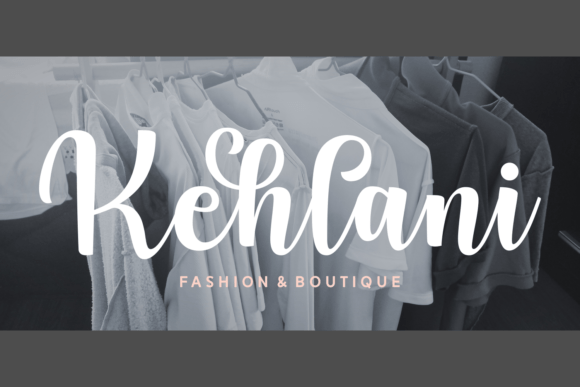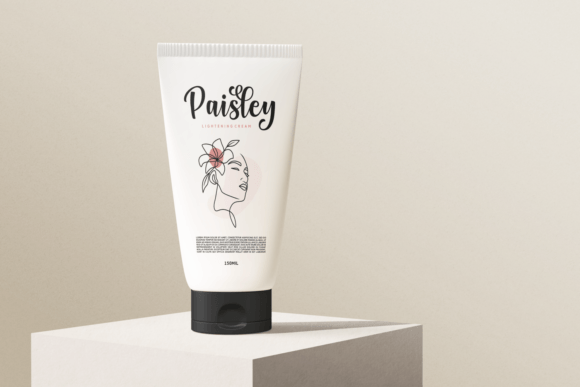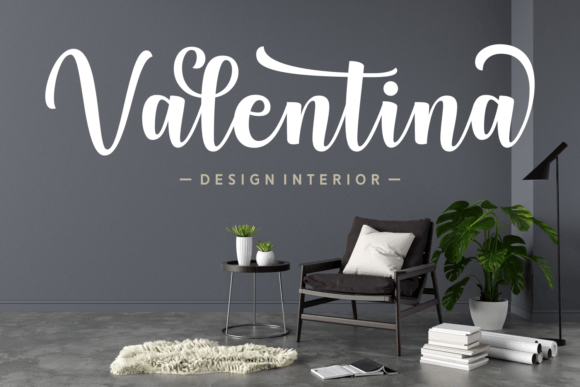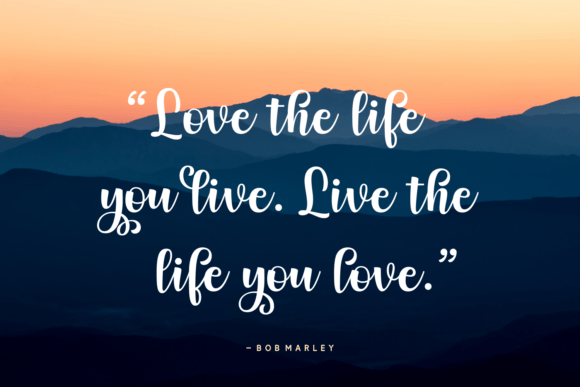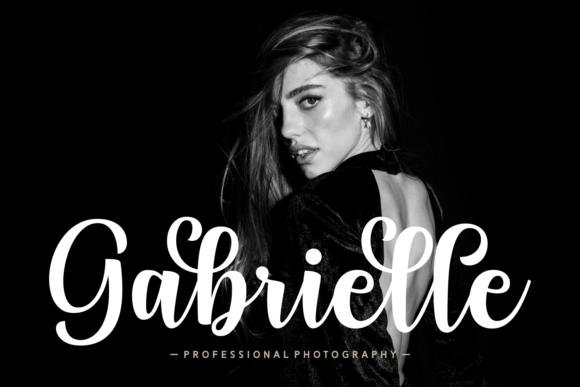
When Words Become Works of Art
Imagine you’re a graphic designer, and you’ve been tasked with creating the perfect wedding invitation for a client’s dream wedding. You’ve poured your heart and soul into the design, but something’s missing – a touch of elegance that sets it apart from the ordinary. That’s when you stumble upon the Beautiful Soulmate Font, a luxurious script font that exudes charm and sophistication.
With Beautiful Soulmate Font, you can effortlessly transform your promotional materials and product packaging into stunning works of art. Its unique romantic flair makes it an impeccable choice for crafting unforgettable wedding invitations, and its additional swashes, encoded for your convenience, will elevate your designs to new heights. Whether you’re a seasoned designer or just starting out, Beautiful Soulmate Font is an invaluable tool that will help you create truly unforgettable projects.
Beautiful Soulmate Font Key Features
- Font Family: Beautiful Soulmate, a modern calligraphy script font.
- Character Set: Includes uppercase and lowercase letters, numbers, punctuation, and special characters.
- Unique Characteristics: Elegant, cursive script with a touch of romance and whimsy, perfect for wedding invitations, quotes, and other creative projects.
Beautiful Soulmate Font Review
I recently had the chance to work with the “Beautiful Soulmate Font” and I must say, it’s a unique and captivating choice. Here are some of its strengths: ✨
- Its elegant, cursive script makes it perfect for romantic and wedding-related designs.
- The font’s curves and flourishes add a touch of sophistication and whimsy.
- It’s highly legible, even at smaller font sizes.
- The font may be too ornate for more straightforward or professional designs.
- Its complexity can make it difficult to pair with other fonts.
- Some characters may not render correctly in certain fonts or applications.
Overall, I think the “Beautiful Soulmate Font” is a great choice for designers looking to add a touch of romance and whimsy to their projects. While it may not be suitable for every design, it’s definitely a unique and eye-catching option.
For the most beautiful results, use Beautiful Soulmate Font for romantic or sentimental content, such as:
Wedding invitations and announcements
Love letters and poems
Anniversary and Valentine’s Day cards
Remember to adjust the font size and color to match your design and create a cohesive look.